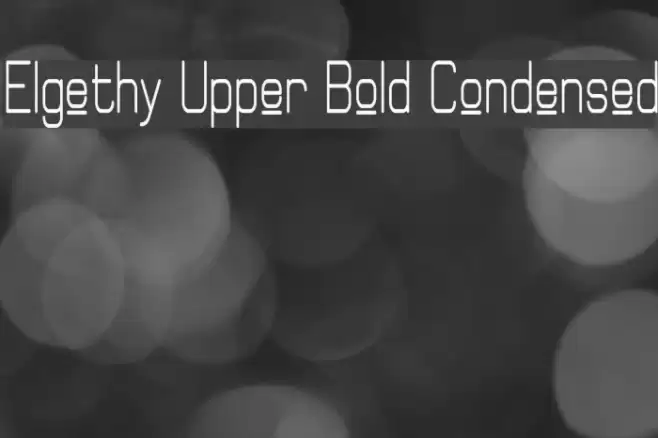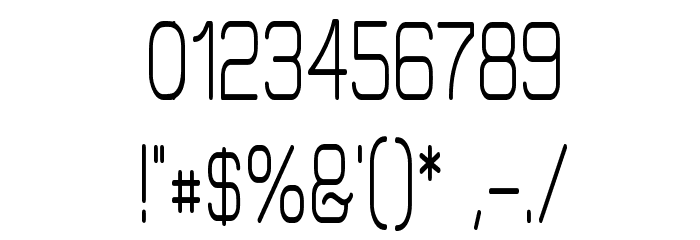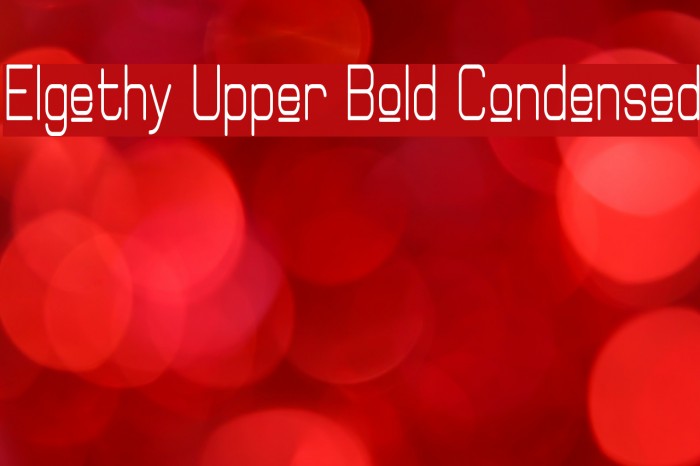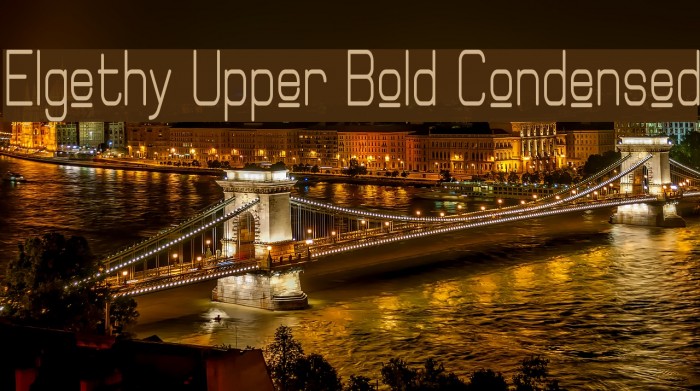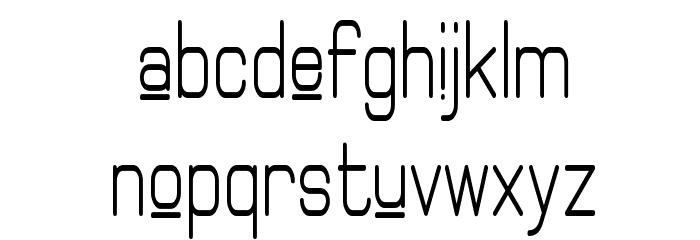
Elgethy Upper Bold Condensed Font
Elgethy Upper Bold Condensed Description
This font features a modern, geometric design with a condensed structure, emphasizing verticality and clean lines. The uppercase letters are tall and narrow, creating a sleek and sophisticated appearance. The lowercase letters maintain a consistent style, with rounded edges that add a touch of softness to the overall look. The numerals are uniform and align well with the alphabet, ensuring readability and balance. Special characters are designed with the same attention to detail, making them suitable for various applications. The font's bold weight enhances its presence, making it ideal for impactful headlines and titles.
A modern, geometric font with a bold, condensed style and clean lines from Uncategorized fonts.
- Proposed Projects: Ideal for branding, editorial design, posters, and digital interfaces where a modern and impactful look is desired.